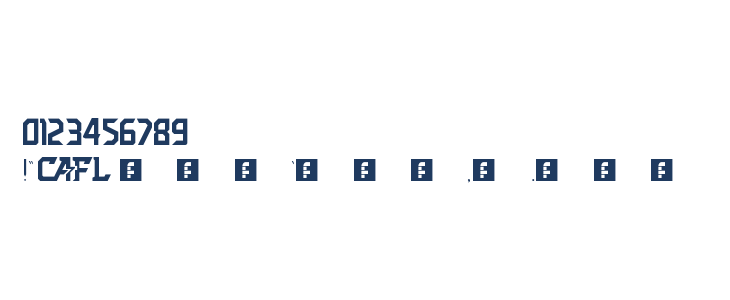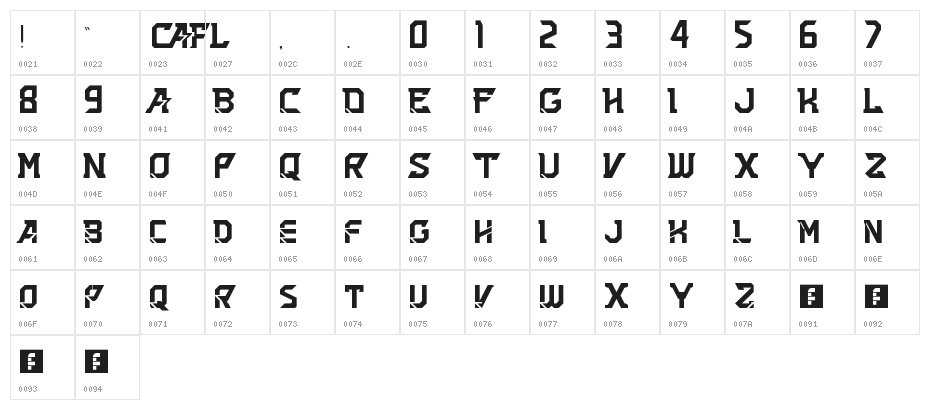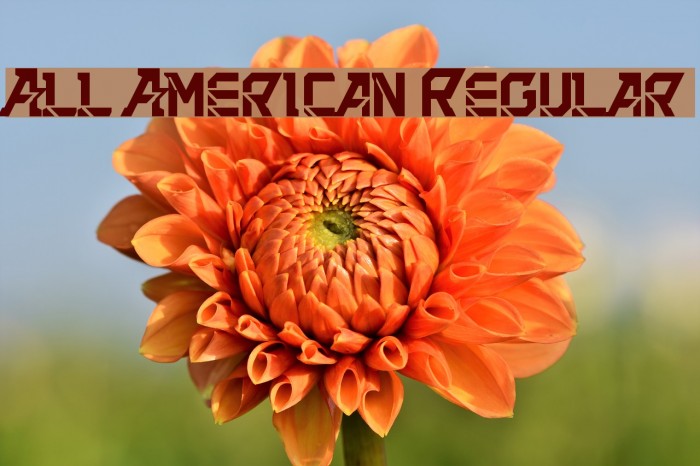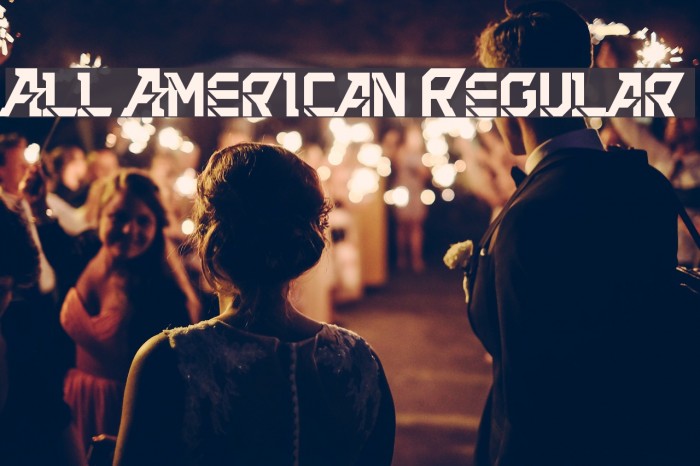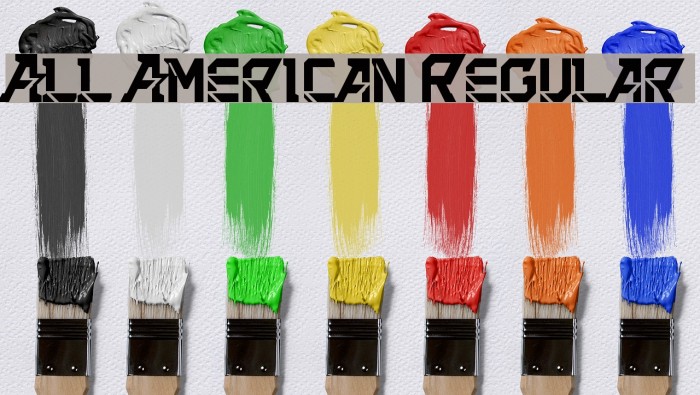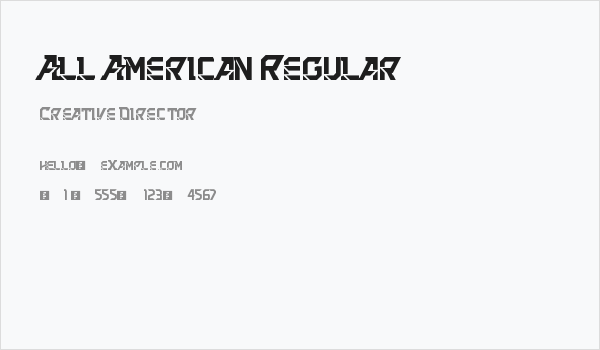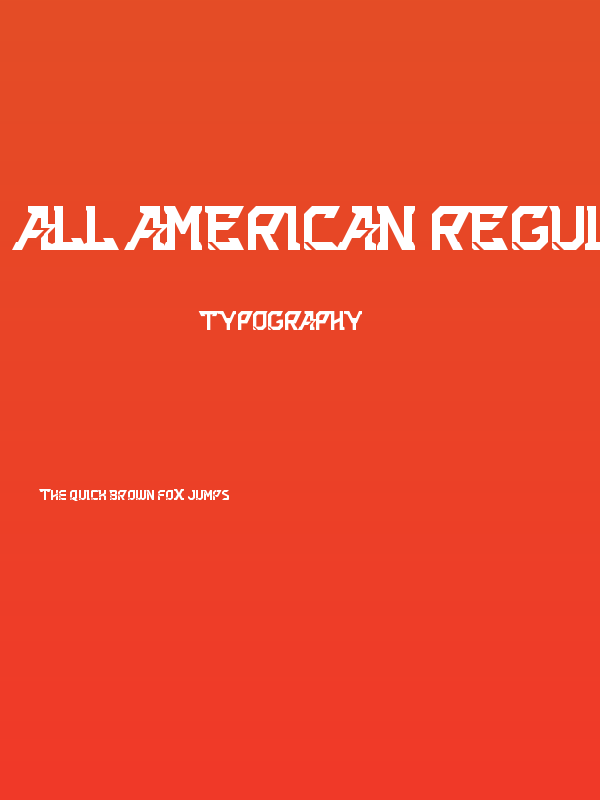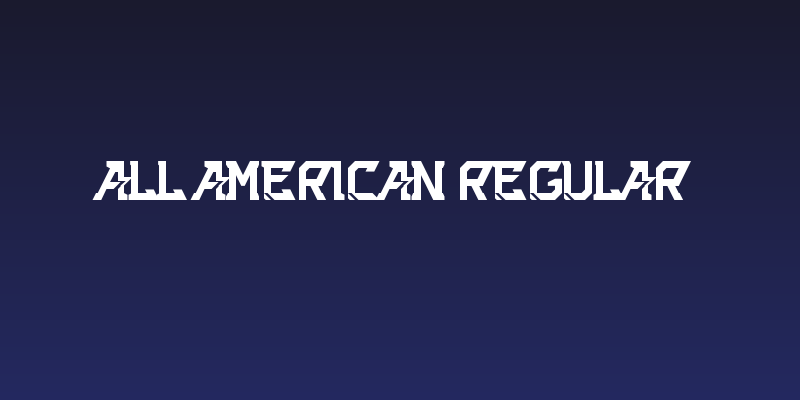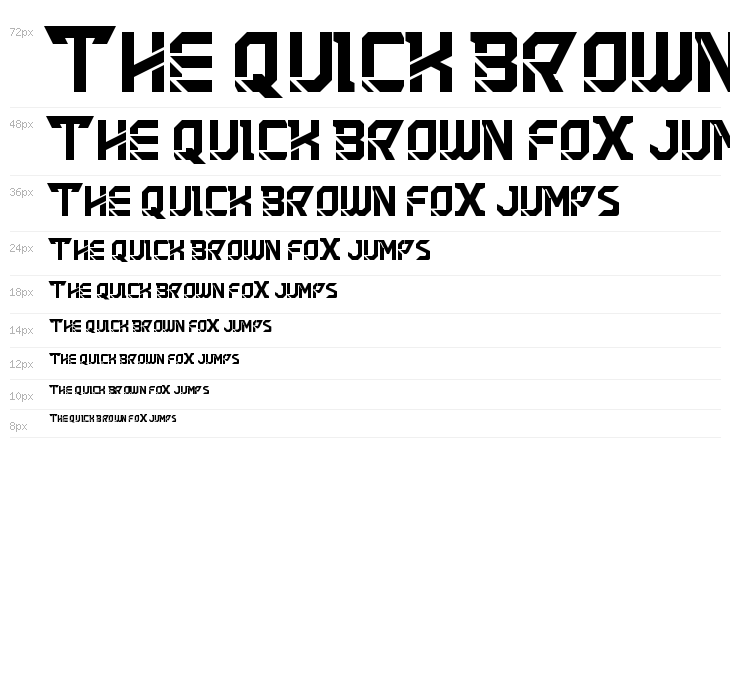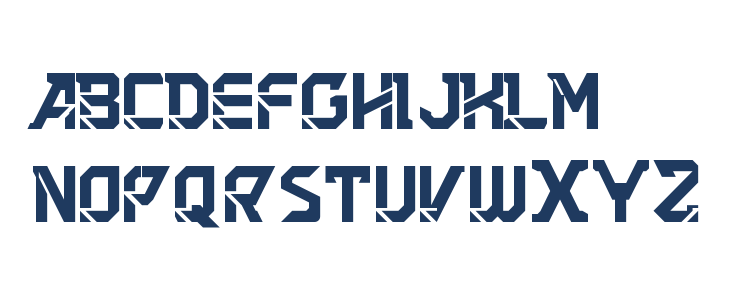
All American Regular Font
All American Regular Description
This font features a bold and geometric design with sharp angles and a futuristic aesthetic. The characters are constructed with a combination of solid and cut-out sections, creating a dynamic and visually striking appearance. The uppercase letters are uniform in height, while the numbers and special characters maintain the same bold style. The font's unique design elements make it stand out, with a modern and edgy feel that is suitable for attention-grabbing headlines and creative projects. Its distinct style is both contemporary and versatile, making it ideal for a variety of design applications.